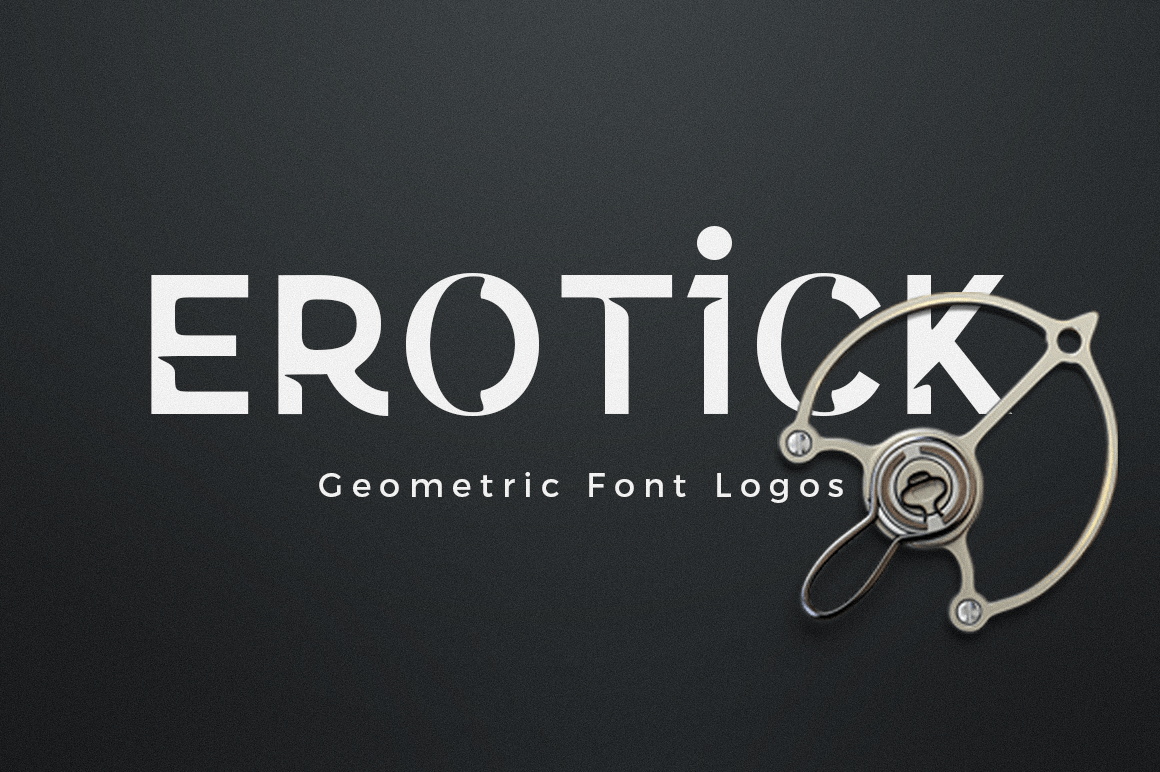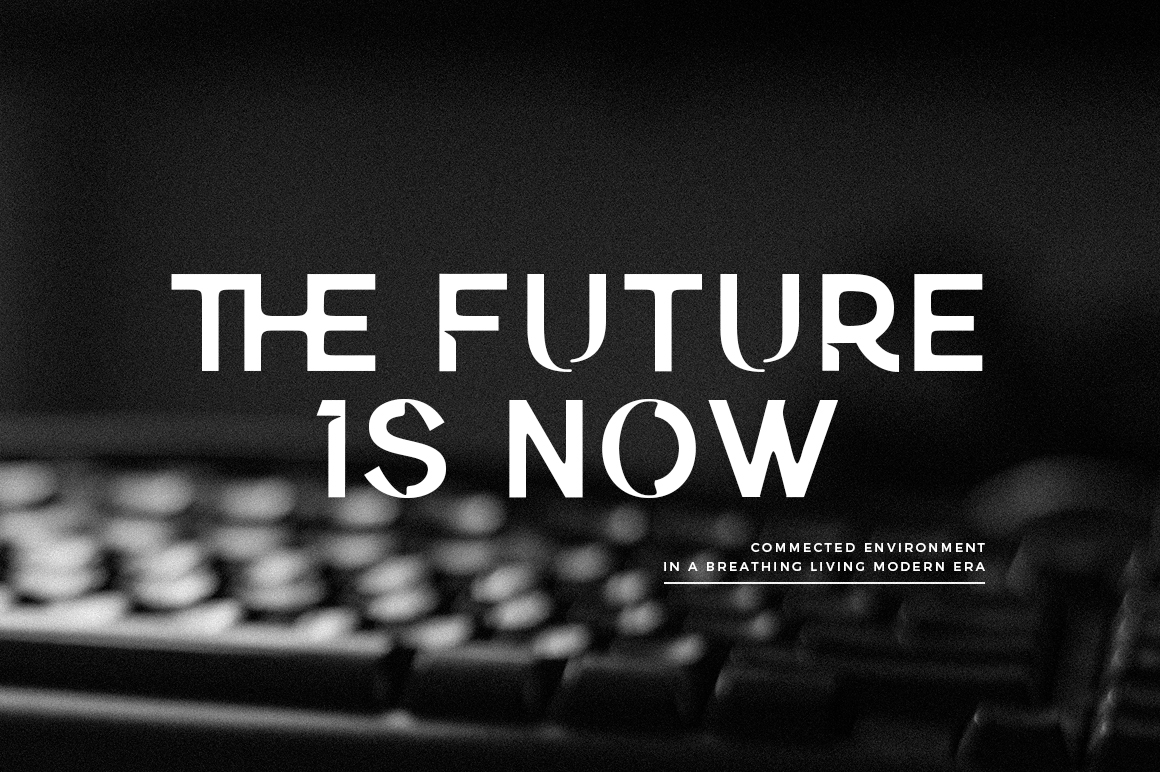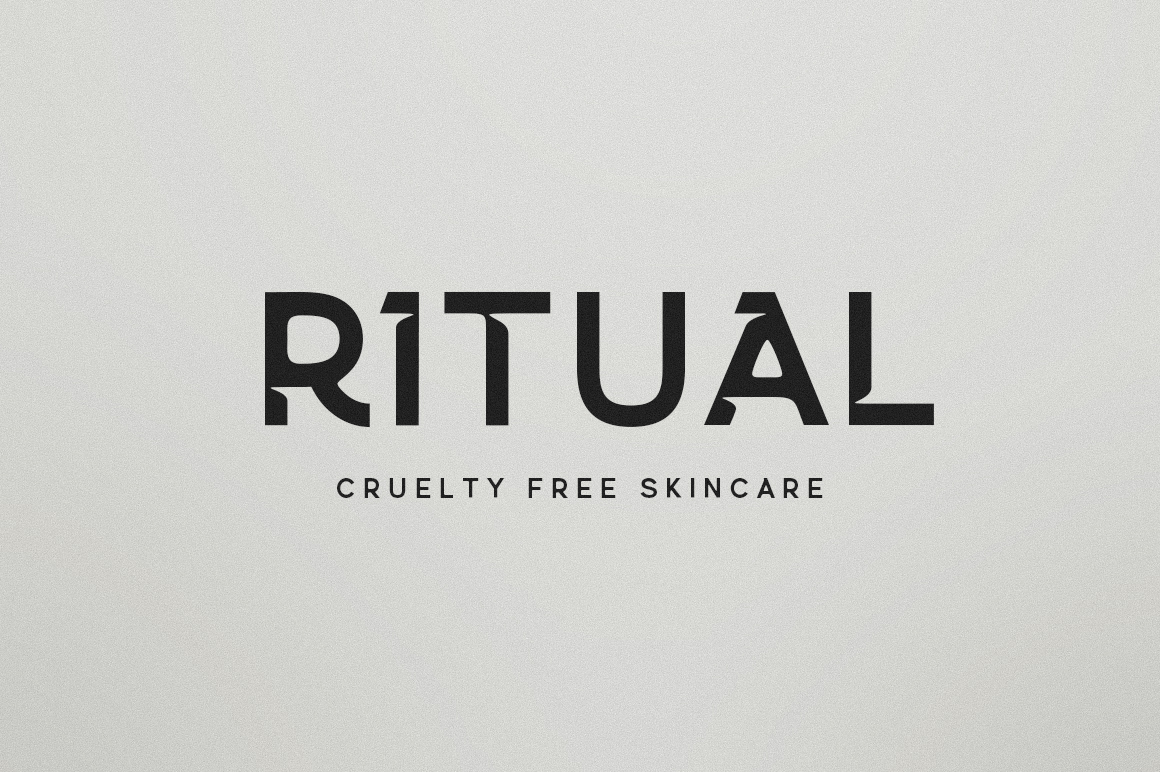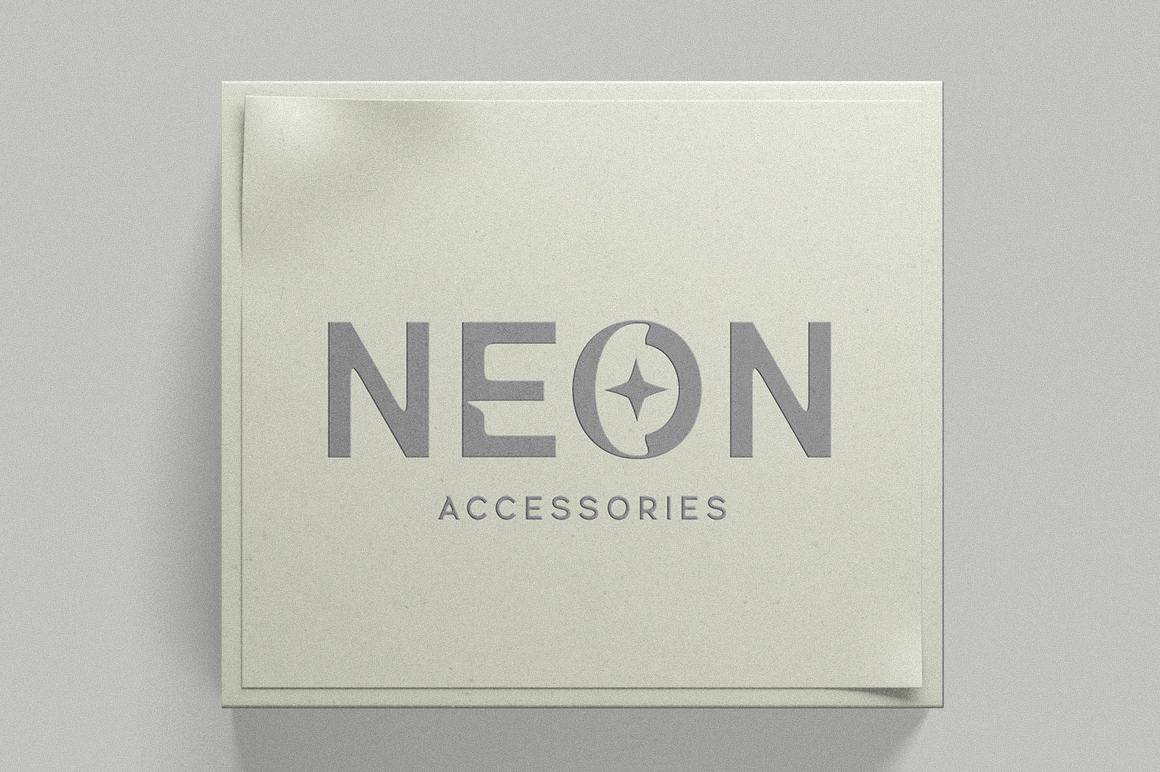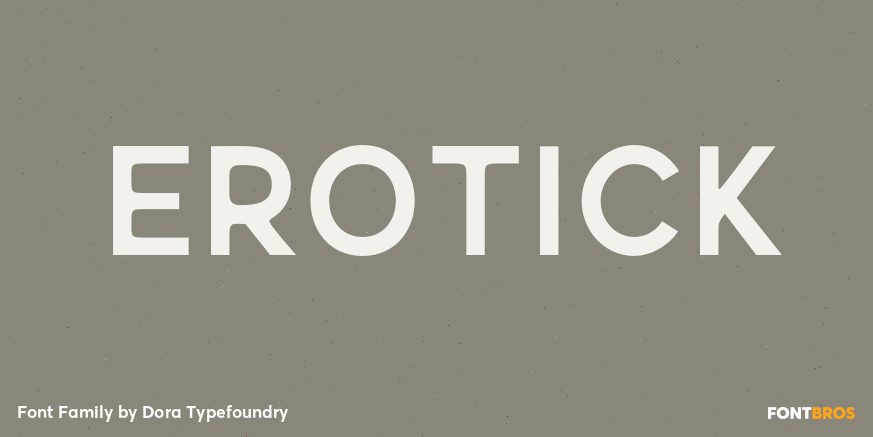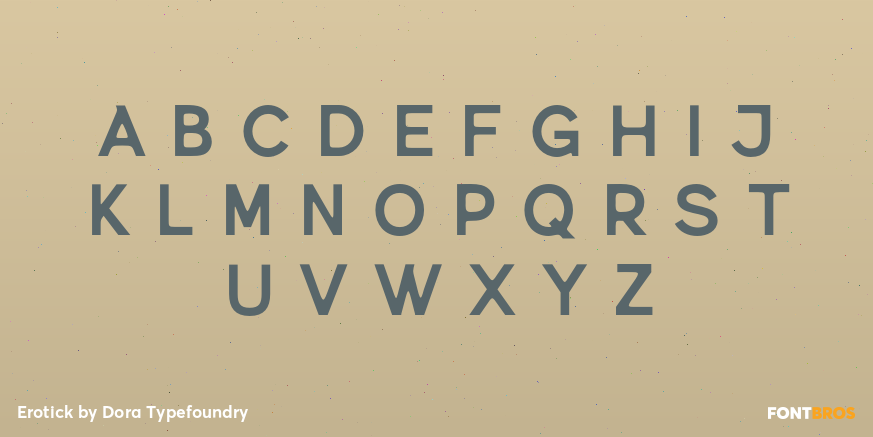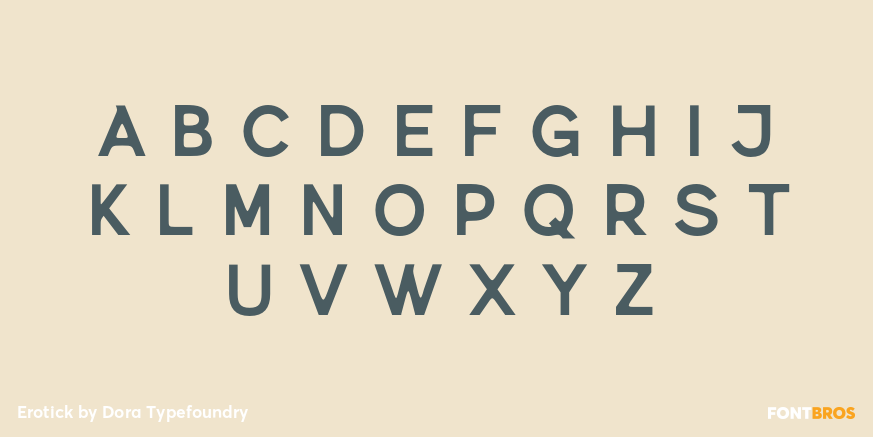
Erotick
Erotick is a new geometric font for a futuristic minimalist logo design, officially my favorite, with this pretty all-caps case it's very versatile and looks great in any context. You can match custom alternatives that will make your designs stand out even more! Erotick is ideal for branding, advertising, logos, magazines, headlines and more, while its simplicity allows it to be a useful family for many occasions.